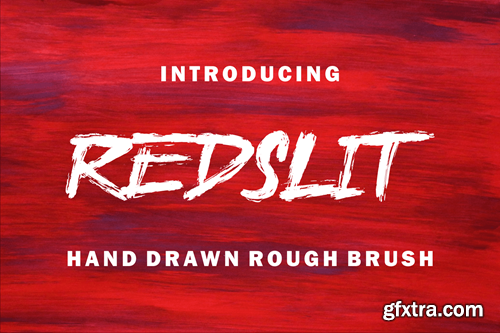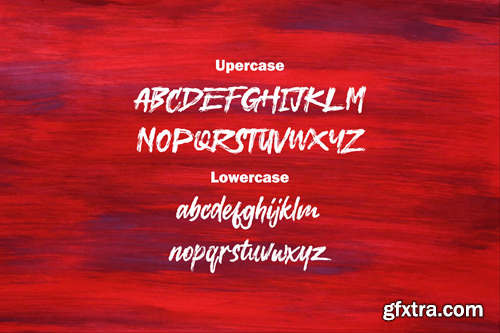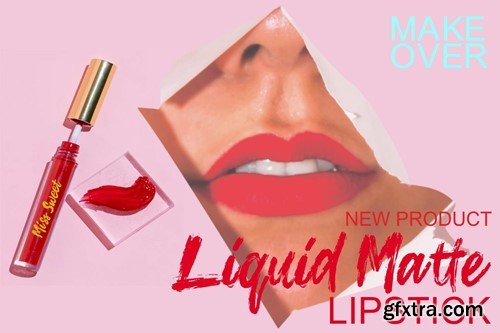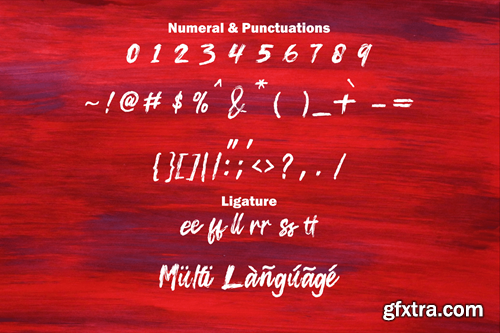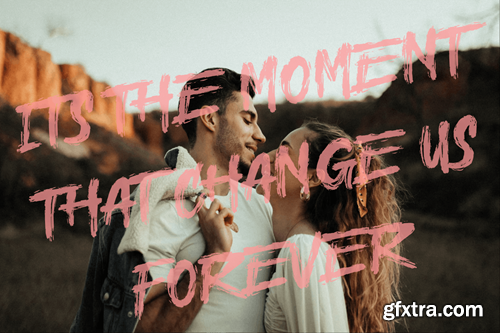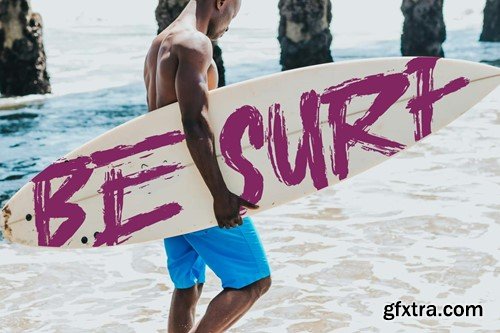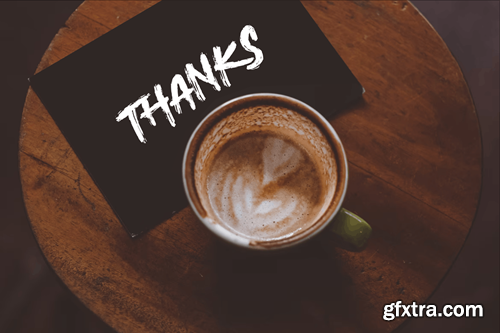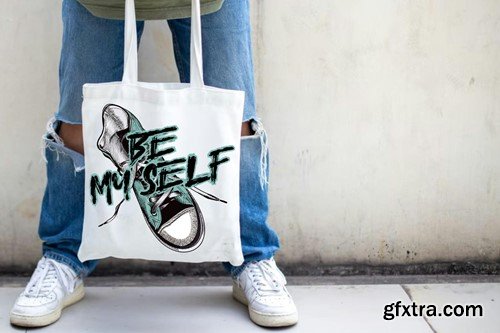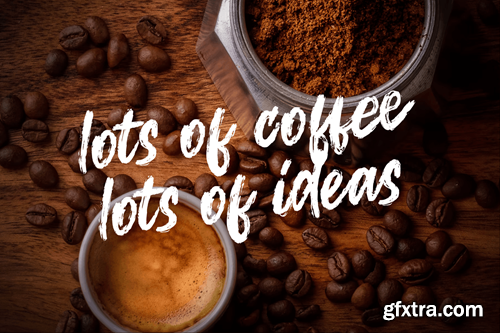
Redslit - Brush Font
Introducing the Redslit It's hand drawn rough brush font with beautiful and natural brush stroke that perfect for logo, poster, product, apparel, packaging and many more. Redslit come with :
• Upercase and Lowcase,
• Number.
• Punctuation
• Multillanguage
• Ligature,